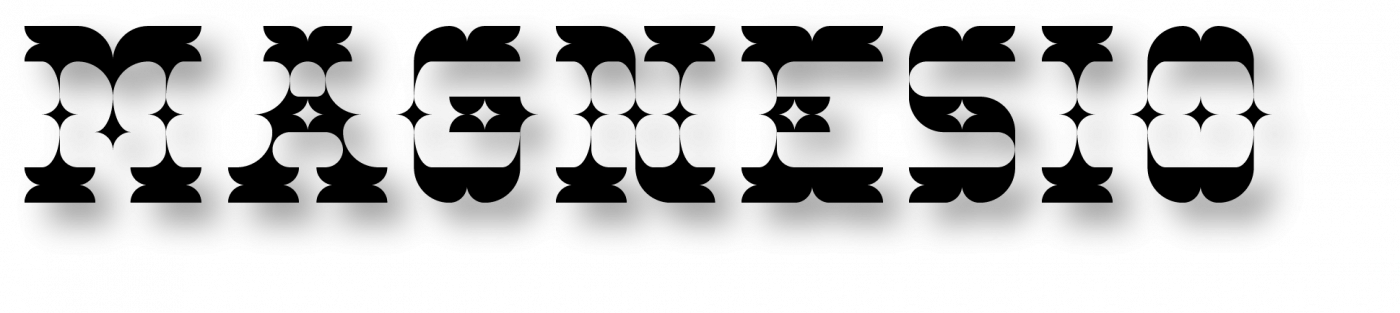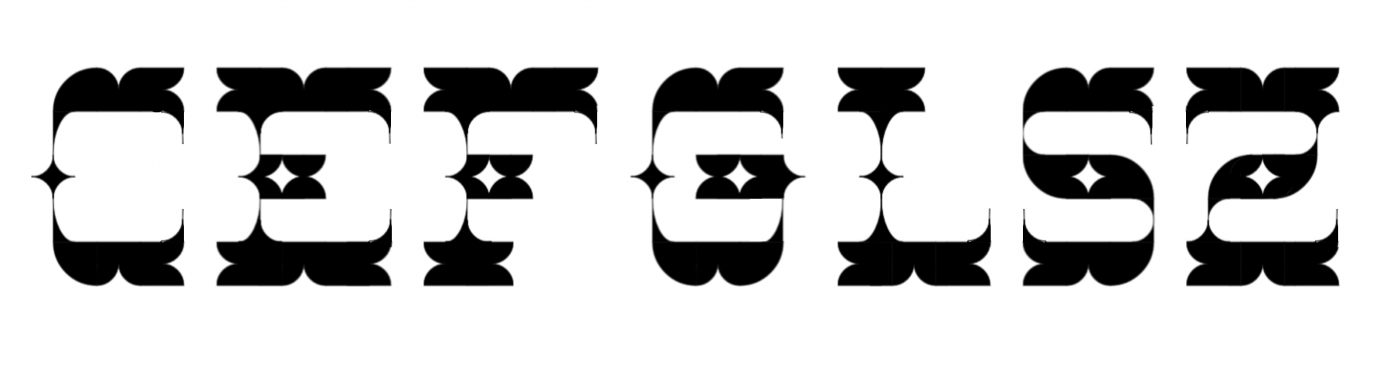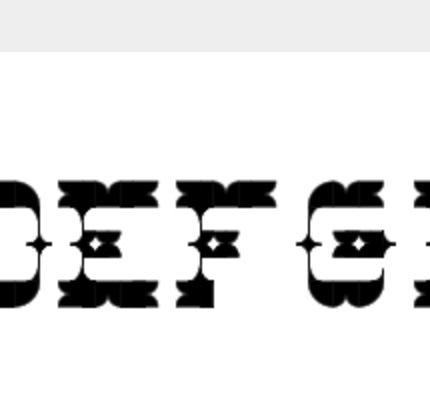
A connected version of Magnesio, which was inspired by Elmoyenique's zoutheast eYe/FS.
I really like this version! My 10 2 U, compa! By the way, what do you think about adding these little closing serifs to some of the glyphs? (and notice the disconnected horizontal bar on the G.) Thanks for teh mention once again, and I'm glad I inspired you a little.
Oops, sorry... And the incomplete bottom of the F.
Nice work!
Bottom of uppercase F is incomplete.
Thanks, I have updated F and G. @elmoyenique: I like your addition to the serifs. Maybe I should create another member of this font family...
Very Westley Font!
Fancy western font with extreme contrast. Awesome 10/10